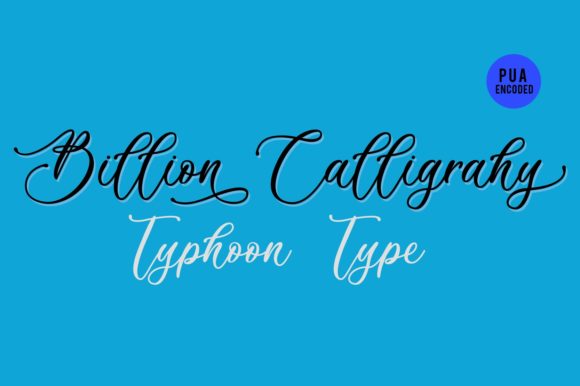
Billion Calligraphy Font: Elevate Your Designs with Timeless Elegance
Billion Calligraphy is a breathtaking script font that embodies the essence of classic calligraphy. With its elegant strokes and refined appearance, this font is perfect for designers and crafters seeking to infuse their projects with an air of sophistication and authenticity. In this article, we’ll explore the world of Billion Calligraphy, its features, and the various ways you can utilize it to elevate your designs.
The Charm of Billion Calligraphy
Billion Calligraphy boasts a distinctive, hand-crafted feel that instantly adds a touch of elegance to any design. Its classic appeal makes it an excellent choice for projects that require a sense of tradition and refinement. Whether you’re working on a wedding invitation, a logo, or a branding project, Billion Calligraphy is sure to make a lasting impression.
Key Features of Billion Calligraphy
- Classic Script Style: Billion Calligraphy features a traditional script style with flowing connections and delicate strokes, evoking a sense of nostalgia and sophistication.
- Highly Legible: Despite its ornate appearance, Billion Calligraphy remains highly legible, making it suitable for use in a variety of applications, from headings to body text.
- Versatile: This font is incredibly versatile, allowing you to use it in various design projects, including wedding stationery, logos, branding, and more.
- Easily Customizable: With its extensive character set and compatibility with popular design software, Billion Calligraphy can be easily customized to suit your specific design needs.
Design Applications for Billion Calligraphy
Billion Calligraphy is an incredibly versatile font that can be used in a wide range of design applications. Here are a few ideas to get you started:
- Wedding Stationery: Add a touch of romance and elegance to your wedding invitations, save-the-date cards, and other stationery with Billion Calligraphy.
- Logos and Branding: Use Billion Calligraphy to create a sophisticated logo or brand identity that exudes refinement and luxury.
- Packaging Design: Elevate your packaging design with Billion Calligraphy, perfect for high-end products or special edition releases.
- Advertising and Marketing: Make a statement with Billion Calligraphy in your advertising and marketing materials, such as brochures, flyers, and posters.
Tips for Using Billion Calligraphy Effectively
- Pair with Simple Fonts: Balance Billion Calligraphy with simpler fonts to create visual interest and hierarchy in your design.
- Experiment with Colors: Billion Calligraphy looks stunning in a range of colors, from metallic gold and silver to rich jewel tones.
- Pay Attention to Spacing: Make sure to adjust the spacing between letters and words to ensure optimal legibility and visual flow.
Billion Calligraphy is a truly exceptional font that can elevate your designs to new heights. With its classic feel, elegant strokes, and versatility, it’s the perfect choice for designers and crafters seeking to add an authentic touch to their projects. Whether you’re working on a wedding invitation, logo, or branding project, Billion Calligraphy is sure to make a lasting impression. So why wait? Discover the beauty of Billion Calligraphy and take your designs to the next level.